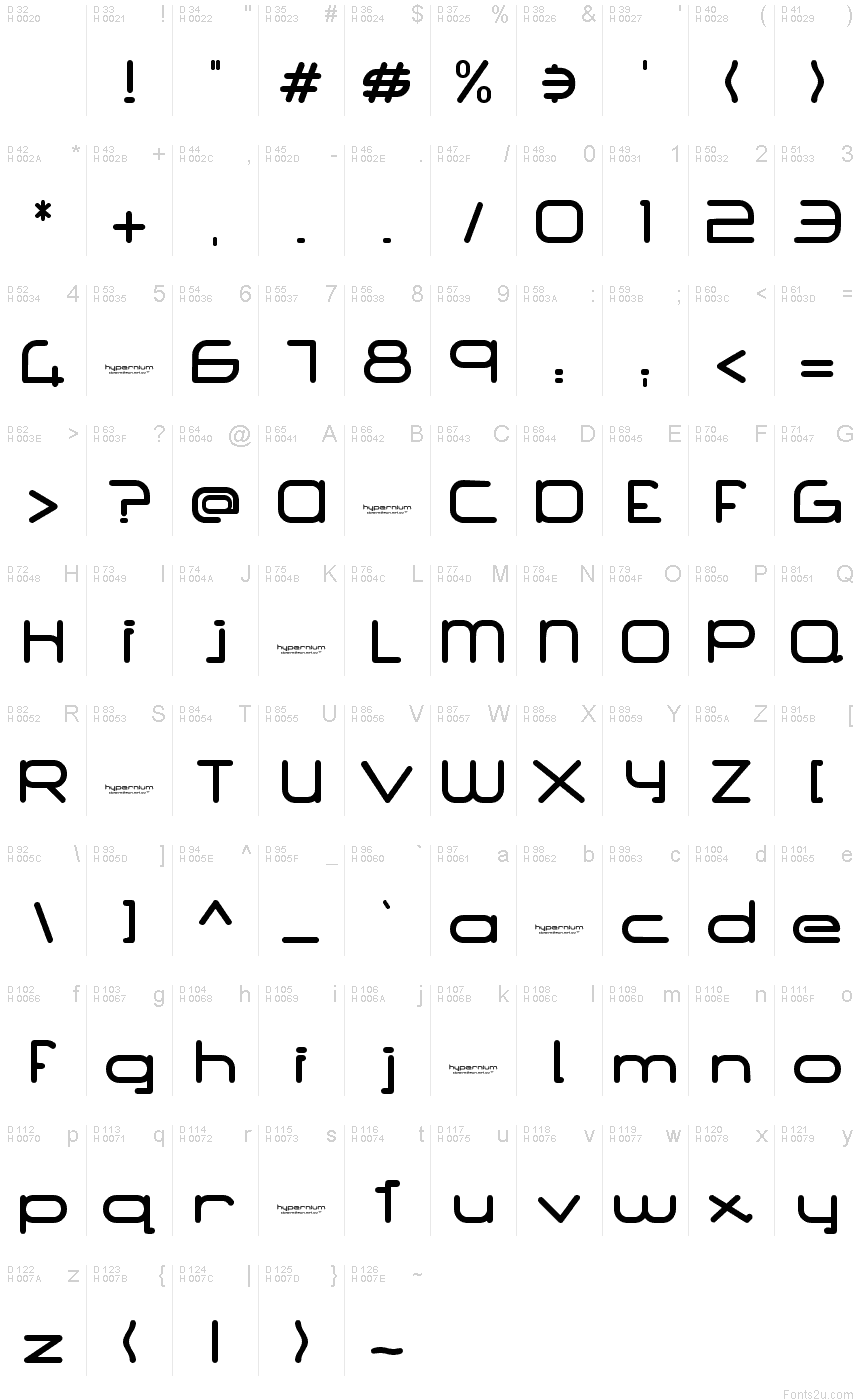
Hypernium(eval)
Hypernium font by Chris Brown is a free modern display typeface with a sleek, tubular rhythm that feels straight out of a sci-fi interface. Its rounded corners, consistent stroke weight, and looping counters create a smooth, continuous flow, like neon tubing bent into letterforms. The letters sit close and confident, giving headlines a streamlined, high-tech energy without feeling cold or mechanical.
Using Hypernium, you can push tech logos, gaming titles, sci-fi posters, product packaging, UI headers, and event branding into a distinctly futuristic zone. This free font shines at larger sizes where its sculpted curves and parallel inner lines can really breathe. Try pairing Hypernium with a simple geometric sans for body copy and let Hypernium handle the bold, attention-grabbing moments.